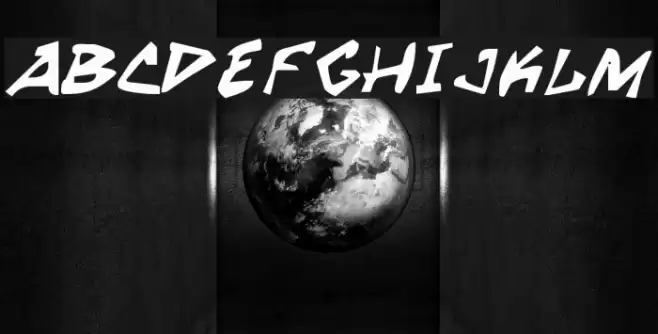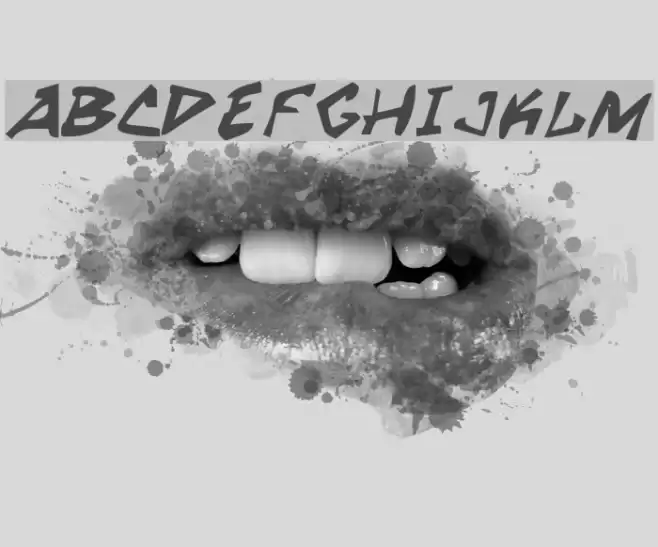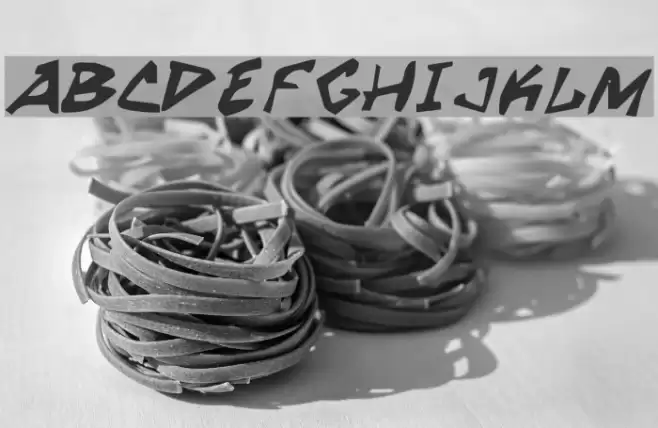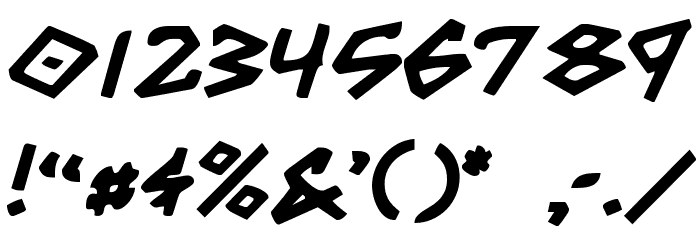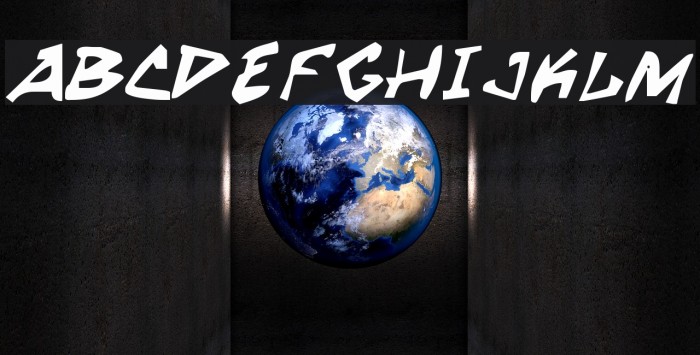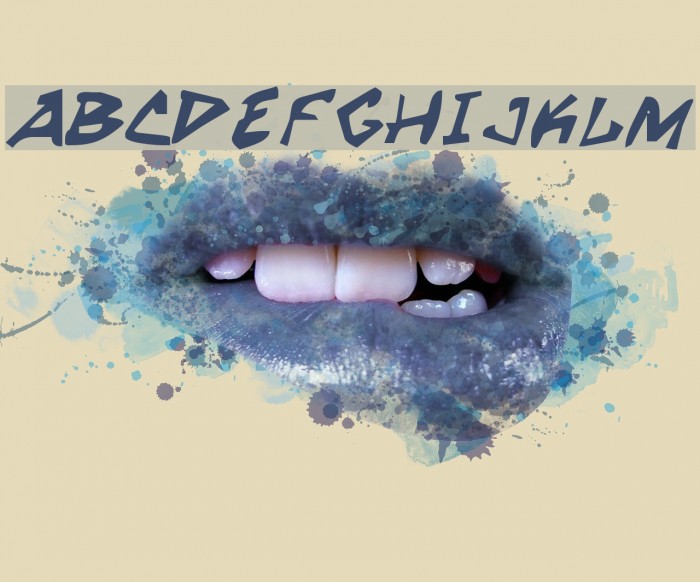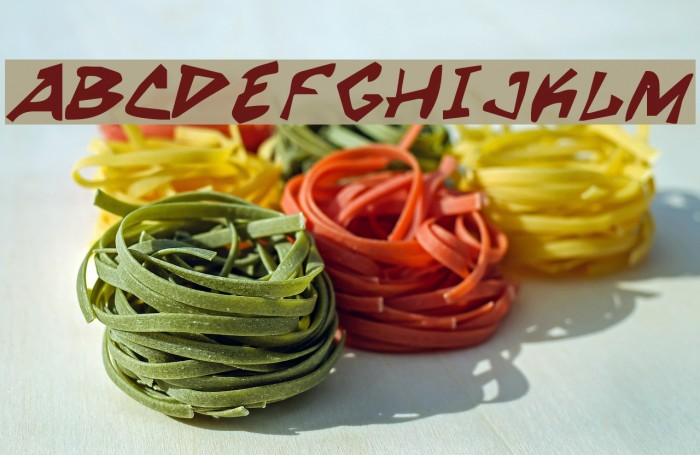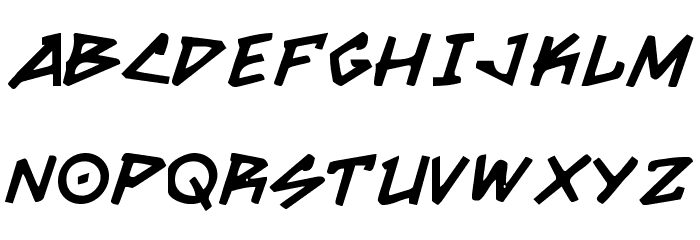
Grrrrrr Bold Font
Grrrrrr Bold Description
This font features a bold, dynamic style with a strong, angular appearance. The letters are sharply defined with a slight slant, giving them a sense of movement and energy. The uppercase and lowercase characters maintain a consistent style, with the uppercase being slightly larger and more pronounced. The numbers and special characters follow the same bold and angular design, ensuring a cohesive look across all elements. This font's unique style makes it stand out, perfect for projects that require a strong visual impact.
A bold, angular font with a dynamic and energetic style from Broken fonts.
- Proposed Projects: Ideal for use in posters, logos, and branding materials that require a bold and impactful design.